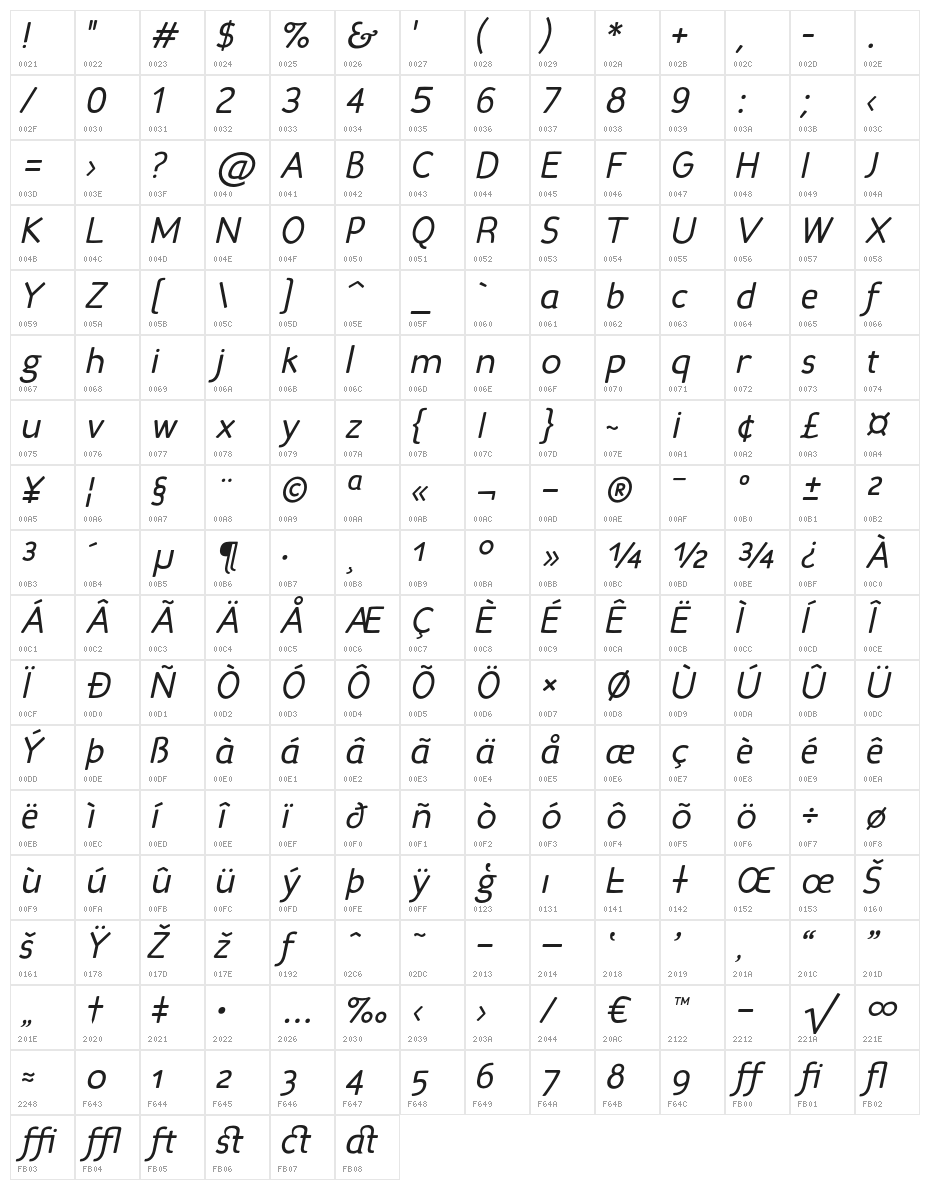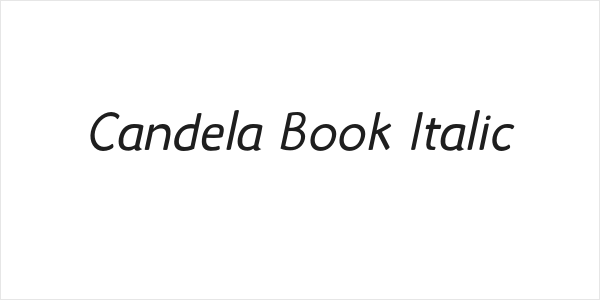
Candela Book Italic Font
Candela Book Italic Description
This font exhibits a sleek and modern design with a subtle italic slant, giving it a dynamic and forward-moving appearance. The characters are well-proportioned with a slight curvature that adds elegance without compromising readability. The uppercase letters are tall and slightly narrow, while the lowercase letters maintain a consistent flow, enhancing the overall harmony of the text. The numerals are clear and distinct, making them suitable for both display and body text. Special characters are designed with the same attention to detail, ensuring they blend seamlessly with the rest of the font. The overall style is contemporary, making it versatile for various design applications.